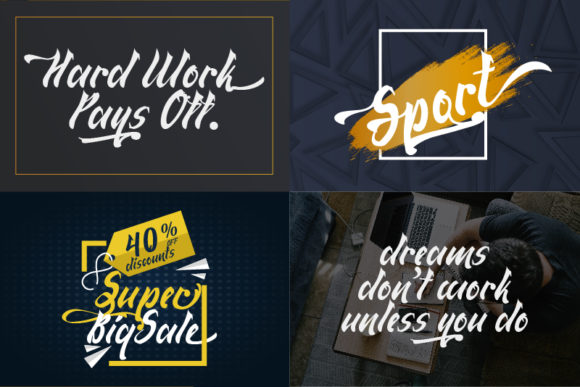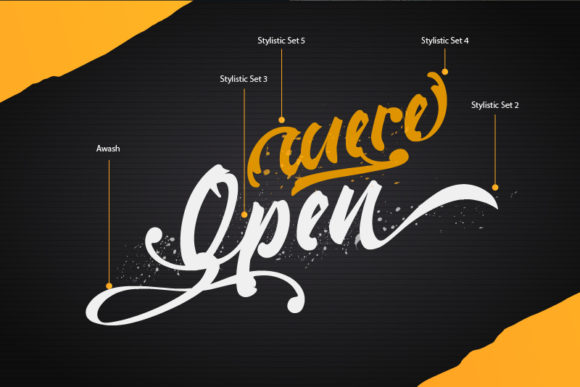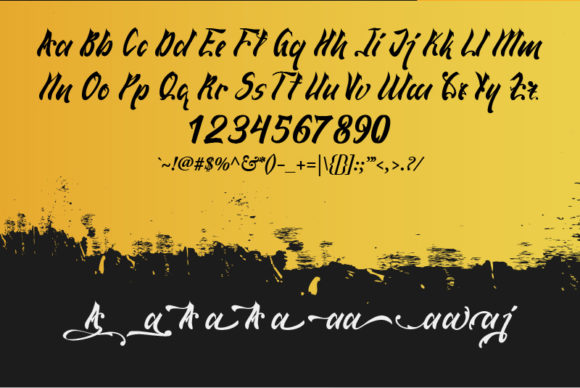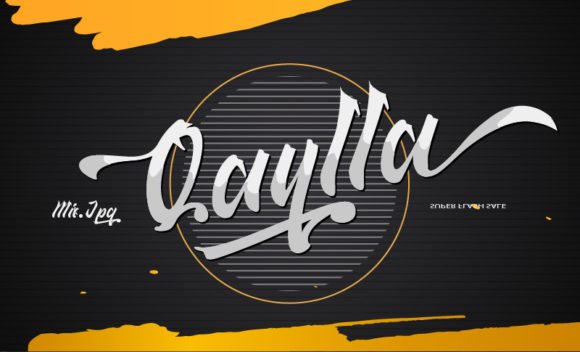
Introduction to Qaylla Font
Qaylla is a handwritten font inspired by 80s-90s music, retro, disco, grunge, and pop culture.
Best used for posters, logos, clothing, books, invitations and more .